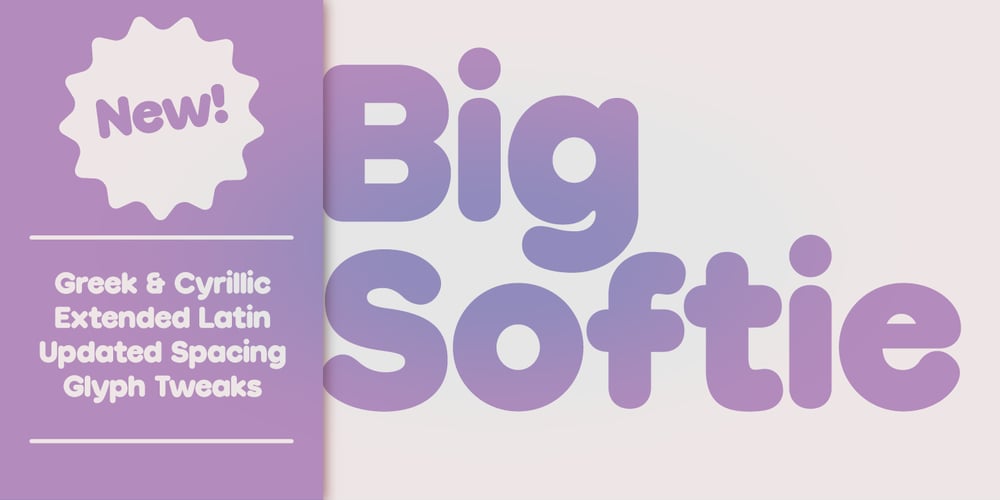
Big Softie
Big Softie font
Big Softie Font Family was designed by published by HouseOfBurvo. Big Softie contains 1 styles and family package options. A cute, fun, soft bubblegum font in one fatty flavor. Perfect for club posters, flyers and packaging, Big Softie is sure to tingle your clients’ taste buds. The font was built on a geometric skeleton, and then rounded and softened, carefully adding character without kitsch. Designed in 2011.